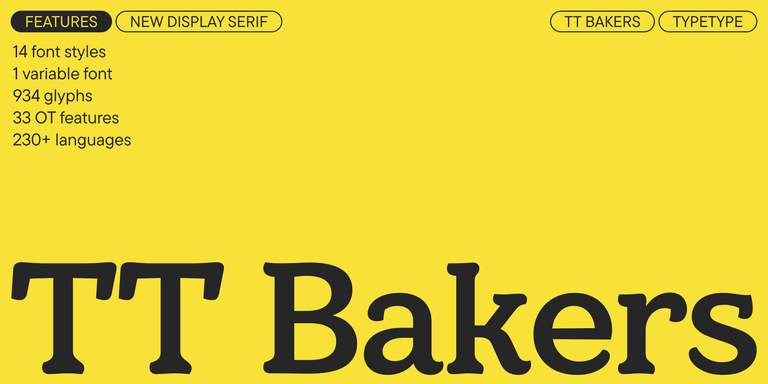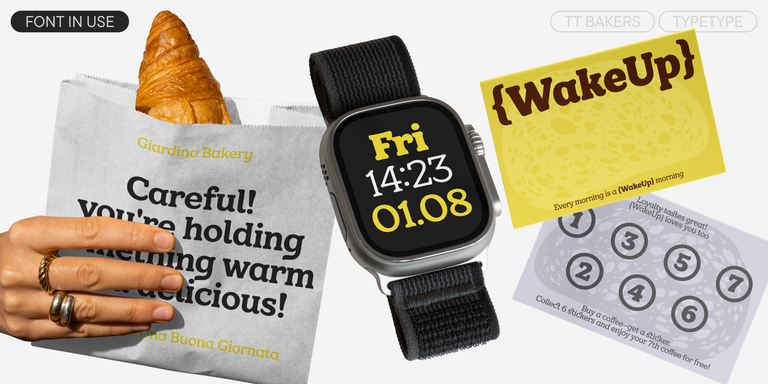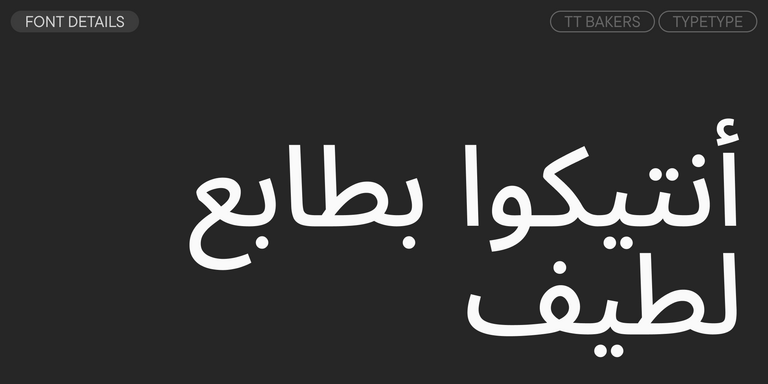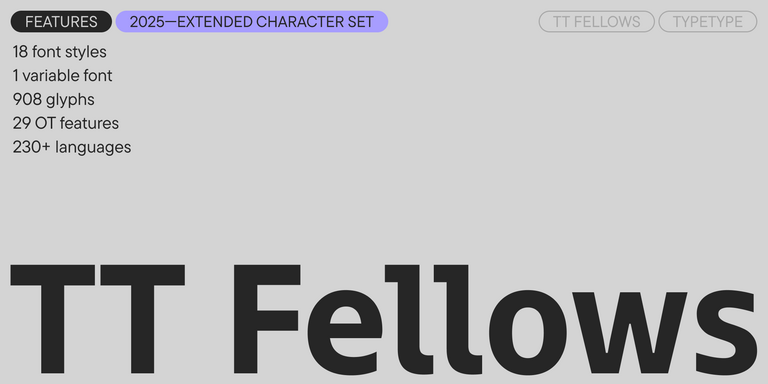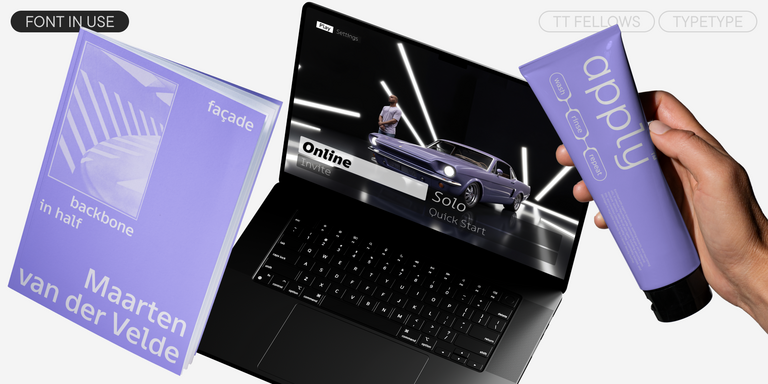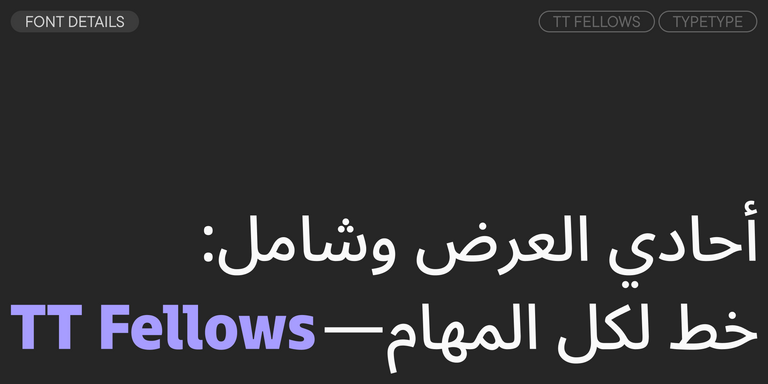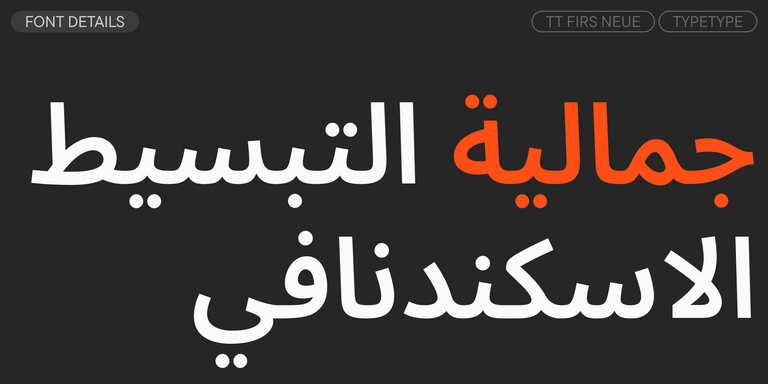
المجلات خطوط
TT Severs is a geometric sans serif with emphasized elements of internal brackets. The main visual feature of TT Severs is the unusual form of internal ovals.
TT Jenevers is a modern serif with a Dutch flavor. The font family features the characteristic details peculiar to Dutch serifs—these are the asymmetrical shape of serifs and an irregular slant of ovals.
TT Regins is a Scottish modern serif. Striking contrast and sharp triangular serifs give this font a stern and commanding character, while refined forms, enlarged lowercase letters, and slightly condensed, static proportions add grace to its design.
TT Quaris is an exquisite, modern high-contrast sans whose design balances between soft and sharp. The glyph shapes in the font are fluid and tend towards roundness, yet there are also sharp elements.
TT Ricordi Allegria is a sleek and intelligent contemporary Florentine grotesque.
TT Bakers is a fluid serif with a gentle and lively character. This font is like freshly baked goods: it’s warm and soft, especially in its bolder weights.
TT Modernoir is a display sans serif with dynamic proportions. Fluid lines and delicate Art Nouveau forms in this typeface blend seamlessly with the rhythmic flow and improvisational freedom of jazz.
TT Moons is a slim and contrast serif. This font family works especially smart in classic design themes. TT Moons is a typeface of the glyptal modern typeface.
TT Ricordi Greto is an experimental project, inspired by a floor plaque dating from 1423 found in the Basilica di Santa Croce, Florence.
TT Firs Neue is a contemporary reincarnation of the good old TT Firs sans serif.
TT Marks delivers a script with dynamic rhythm, heartfelt character, and nostalgic appeal inspired by the classic art of American sign painting. This craft, where skilled artists hand-painted storefront signage with brushes and careful technique, is experiencing a well-deserved renaissance in today’s design world.
TT Fellows is a humanist sans serif with a mechanical touch.